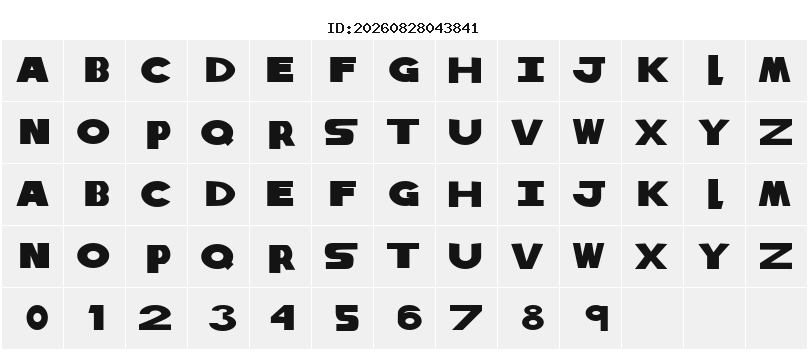
Tribute to Nova Preview
• Font Name: Tribute to Nova
• Full Font Name: Tribute to Nova
About Tribute to Nova.ttf
Tribute to Nova.ttf is a modern, elegant sans-serif font designed for ultimate readability and visual harmony. Perfect for branding, headlines, web design, and print materials.